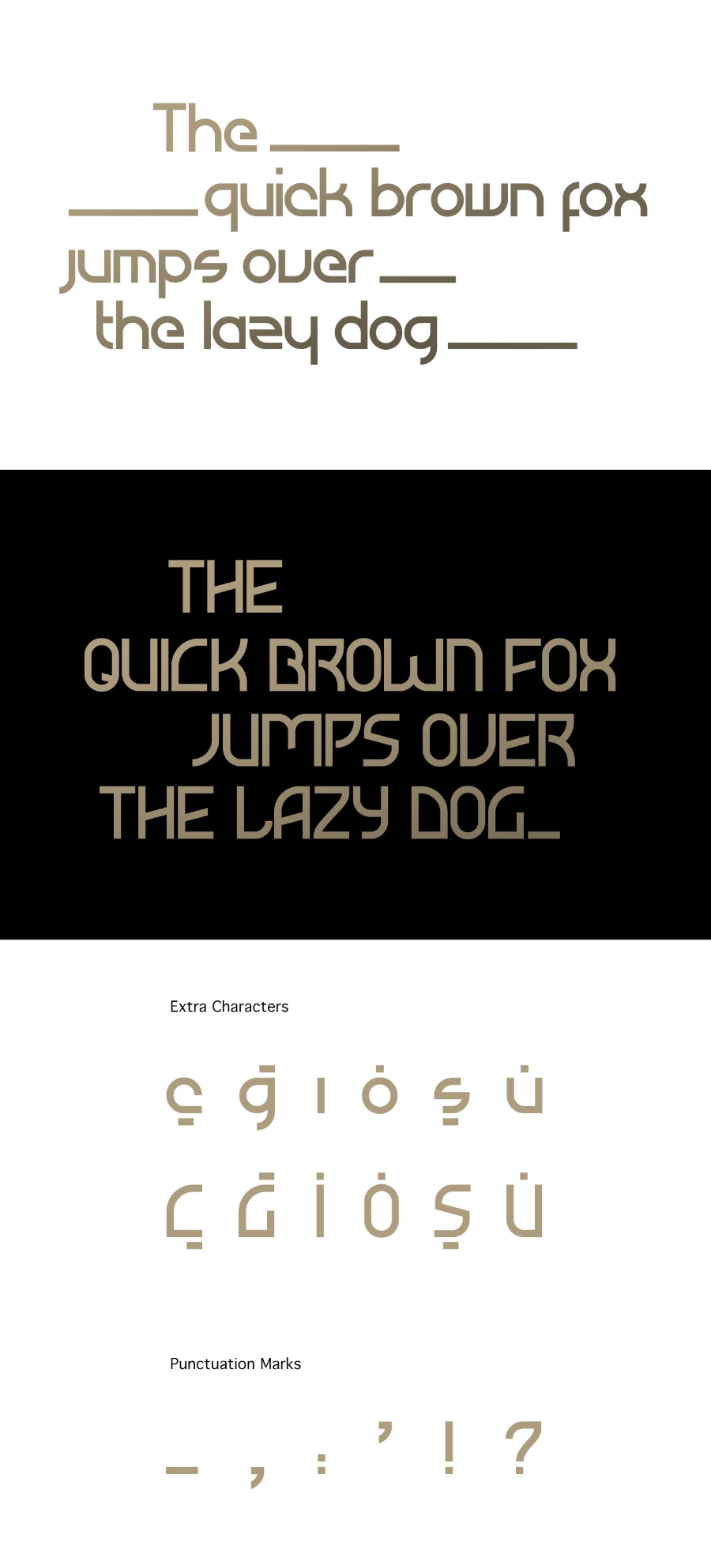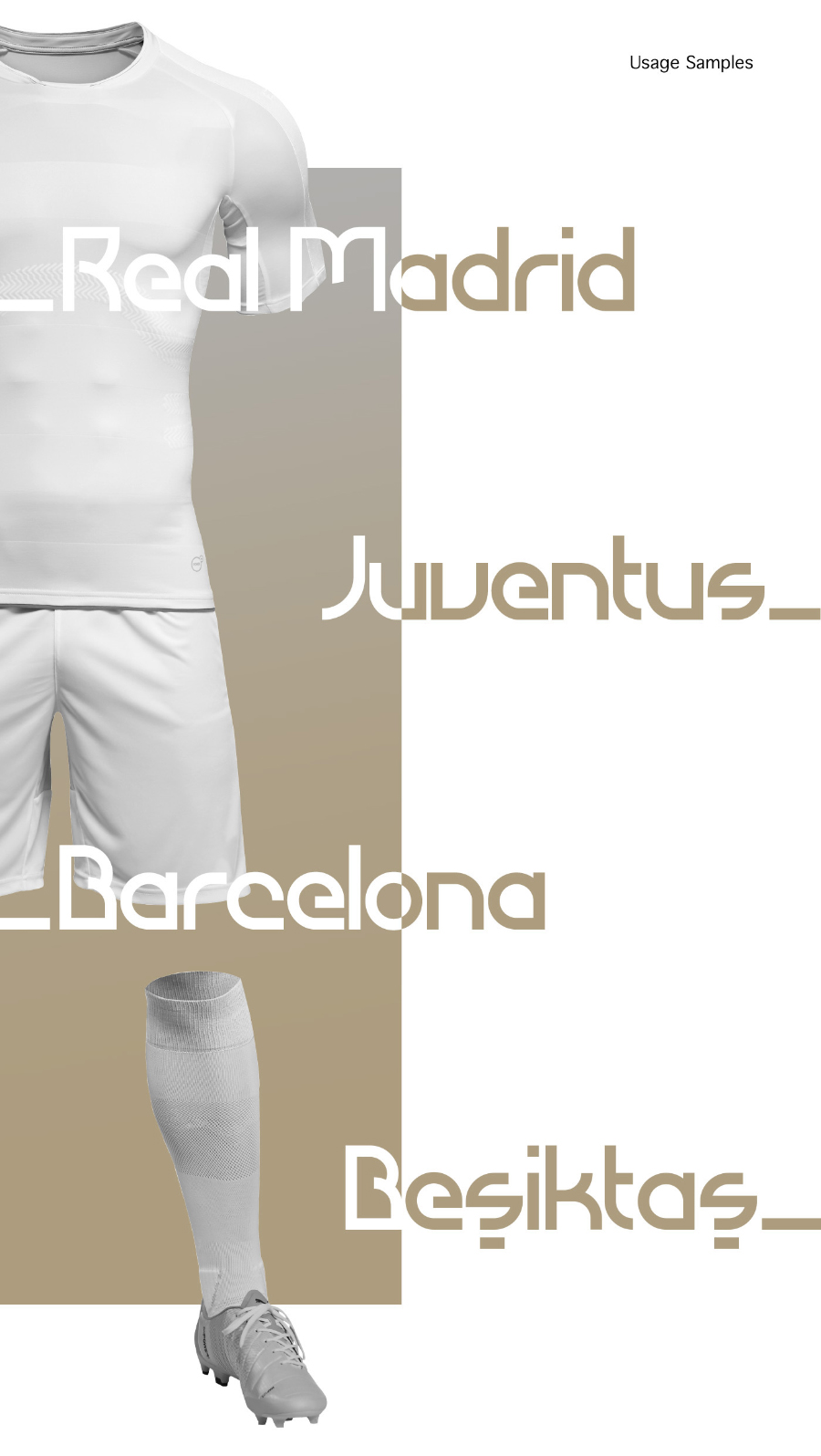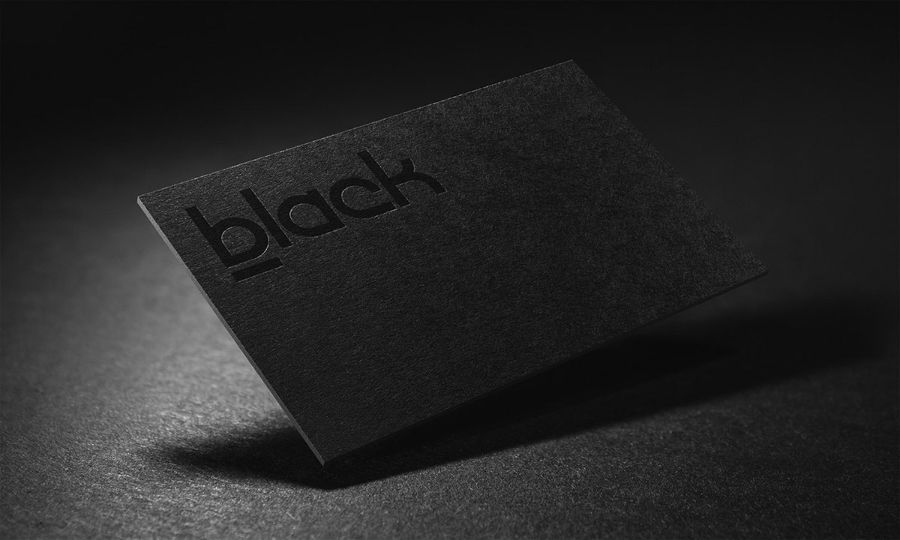
Atiba Font
Introducing Atiba Font! Atiba designed by Ozan Karakoc. Atiba is a font that aims to combine perfect geometric curves with solid straight lines to create a sportive, energetic and timeless look. Flathead is suitable for any project that requires an old western feel as the core design elements; such as logo, wedding invitation, greeting card, poster, etc.